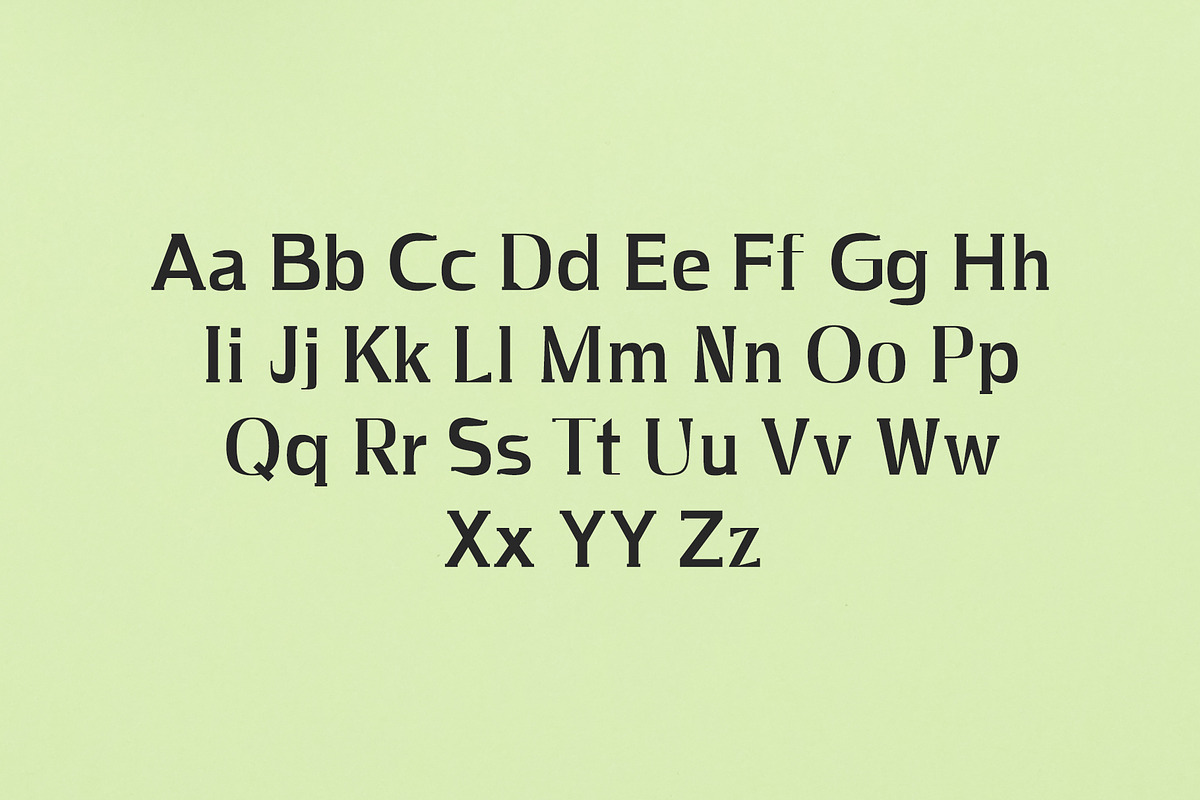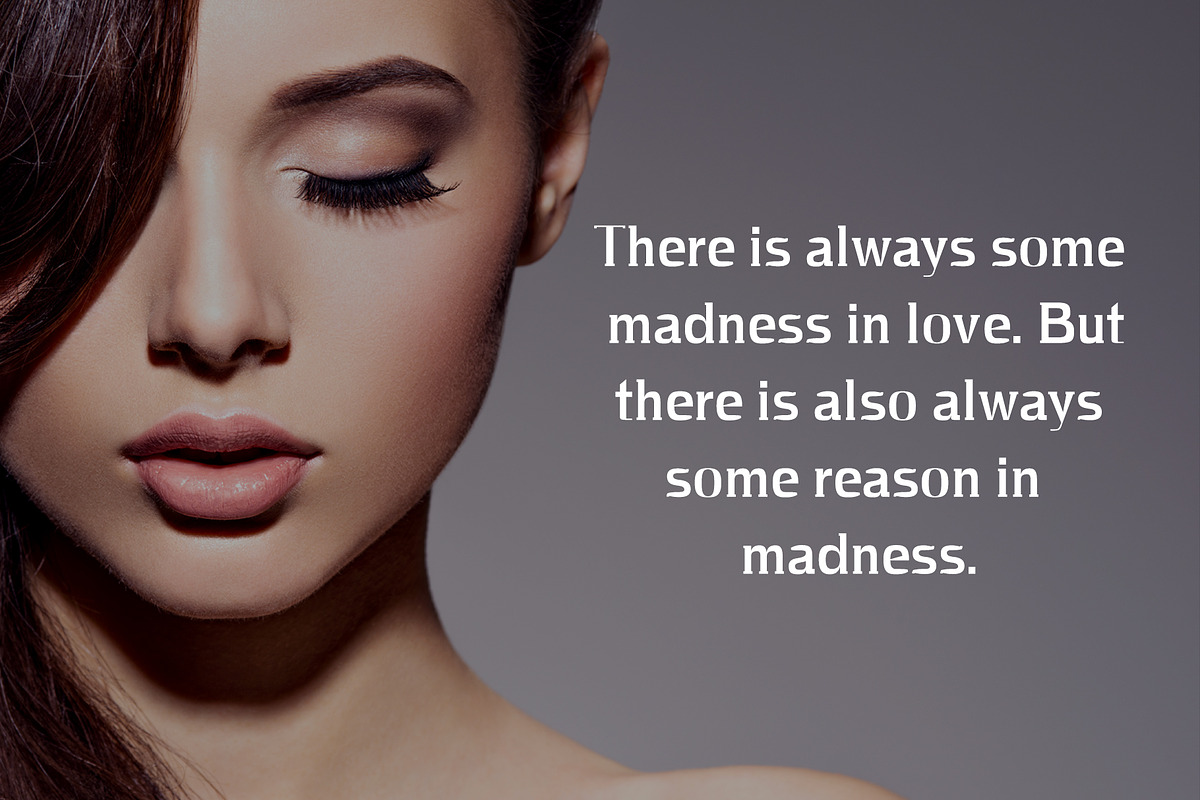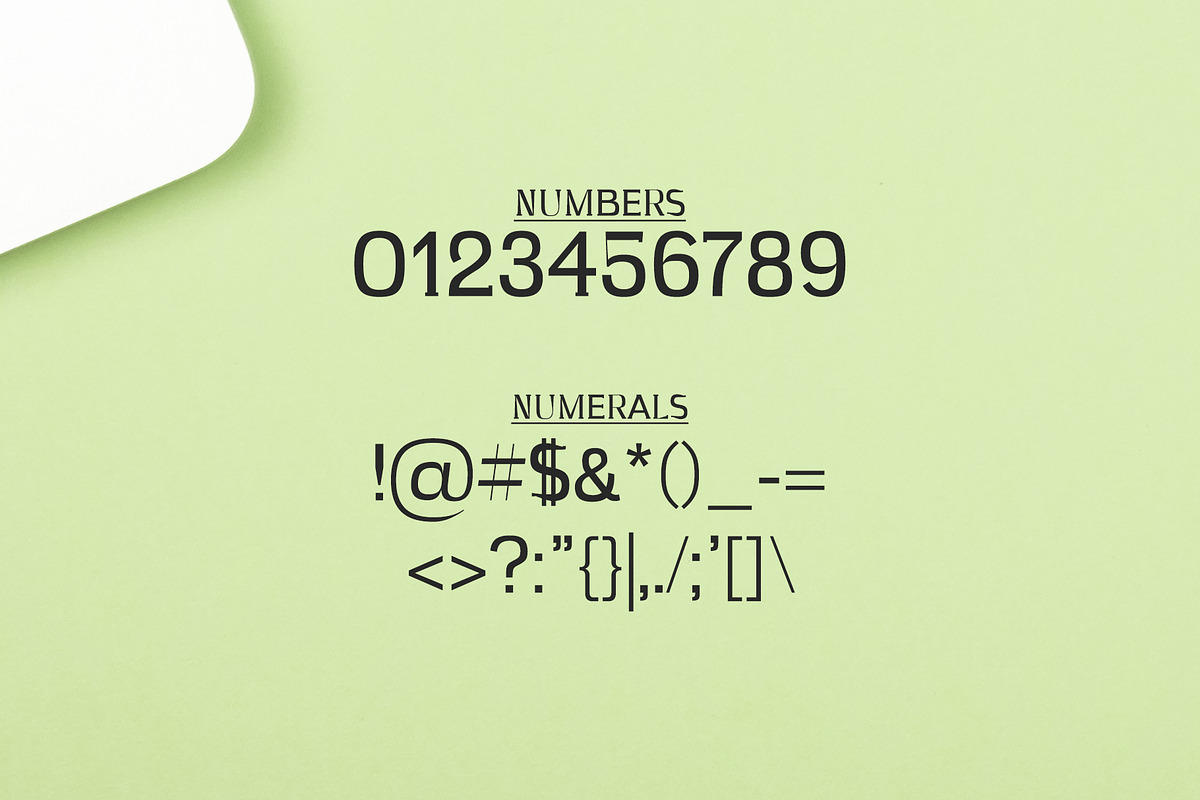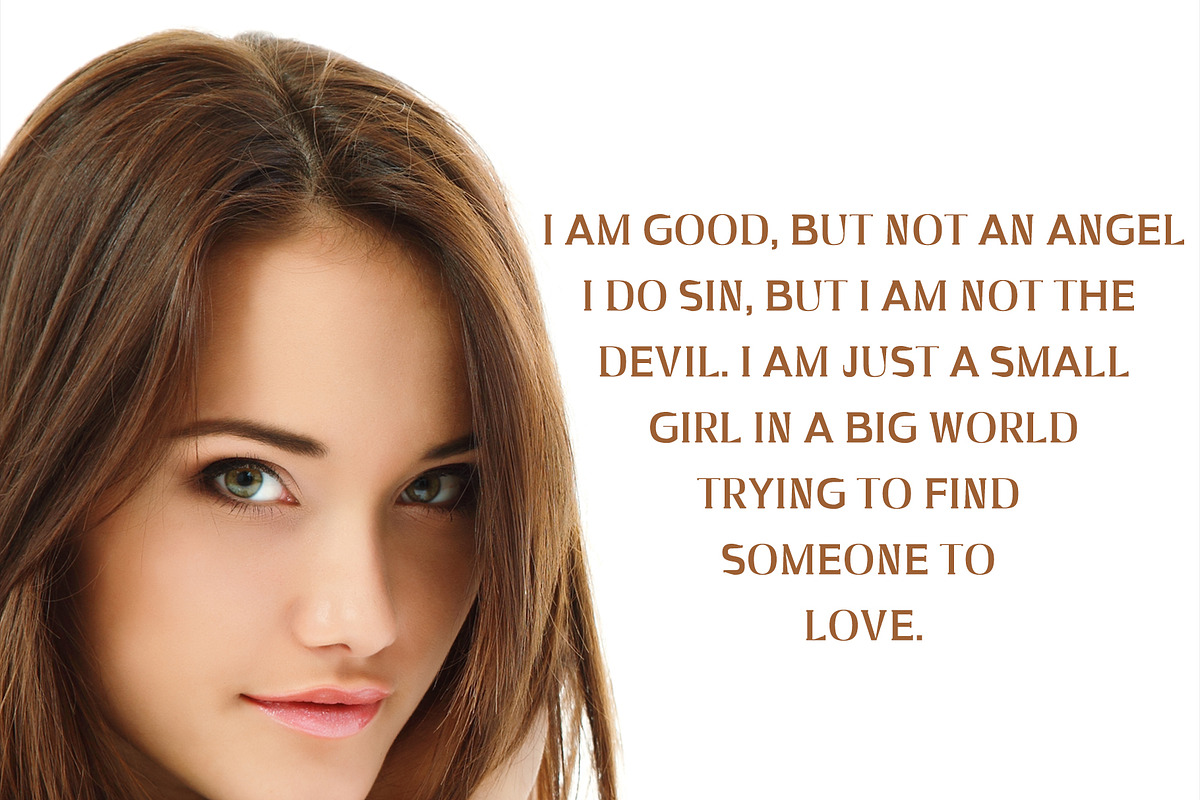
Azel Serif 4 Font Family Pack
Azel Serif 4 Font Family Pack by Creativetacos is a font selected for branding, posters, packaging, typography.
- Uppercase Multilingual Letters
- Lowercase Multilingual Letters
- Numbers & Punctuation
- Alternative
Why Azel Serif 4 Font Family Pack is worth a look
Azel Serif 4 Font Family Pack by Creativetacos fits naturally into Branding, posters, packaging, typography.